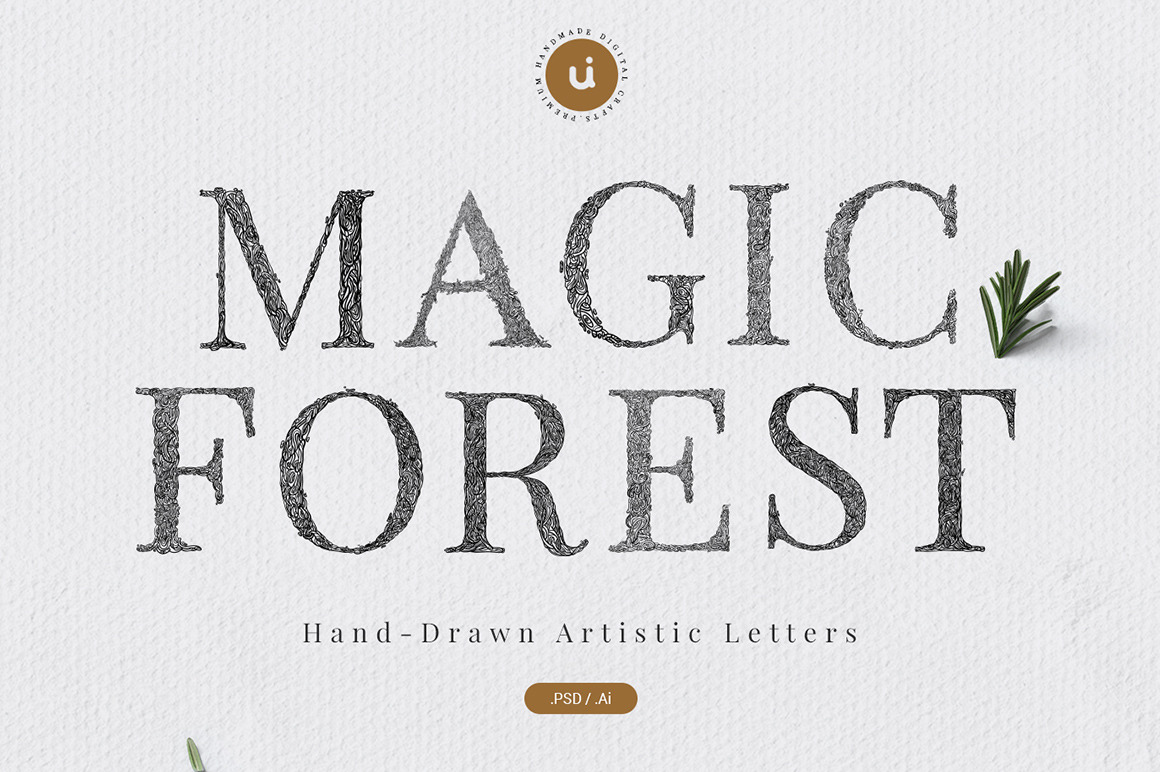
Magic Forest Typeface
Overview and a Little Backstory
I am very excited to finally releasing this artistic package, It took many hours and lots of passion to complete, it was ready 3 months ago but it needed a proper presentation so I did delay it a little bit and then some works came up and... anyway! Here it is, A graphical alphabet based on beautiful font " Playfair". These outstanding letters spice up visual of your brand and help you create a unique feel that will stick in your audience mind. Hopefully, help you to grow your brand and/or your products ( Fingers crossed! )
All letters drawn by hand mostly on iPad pro and then finalized in computer, and I should say that I put my heart to draw it and it was suppose to be a personal artistic work but then I decided to share it with all of you creative folks, Hope you enjoy it as much as I do.